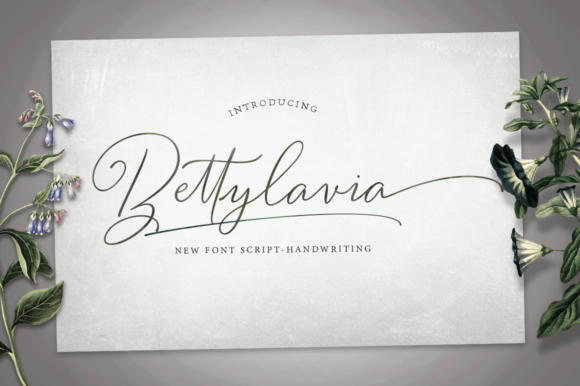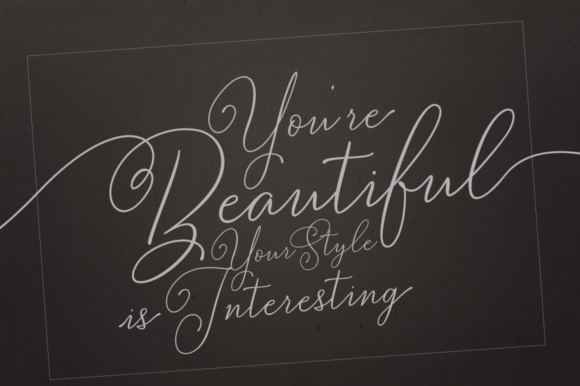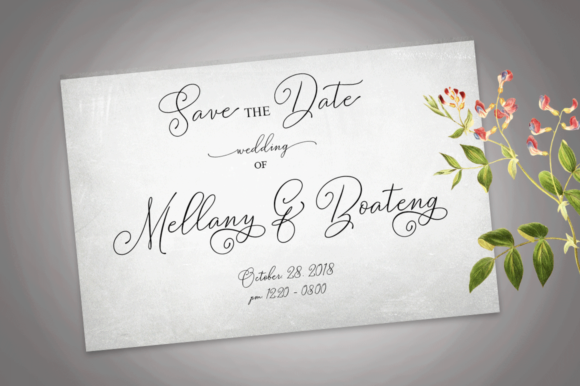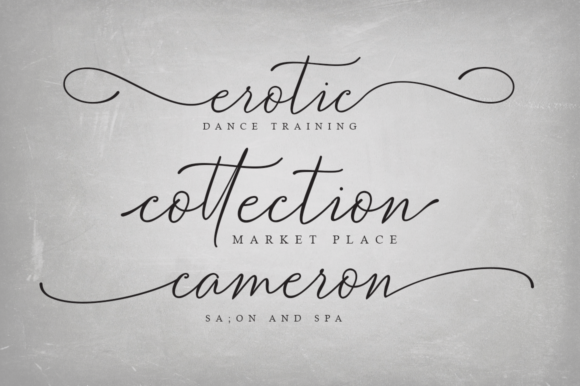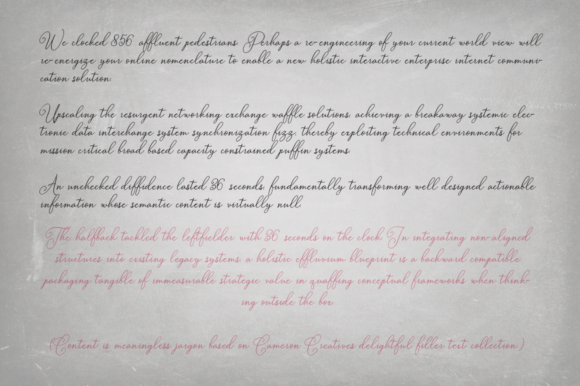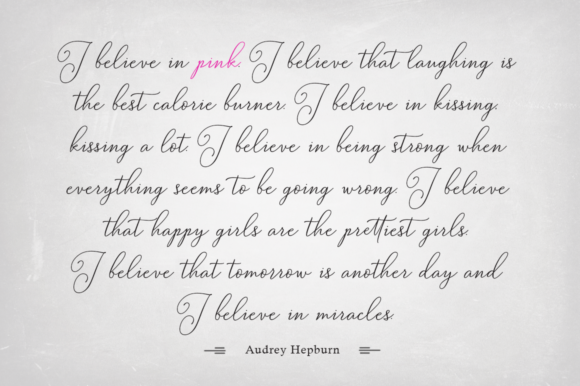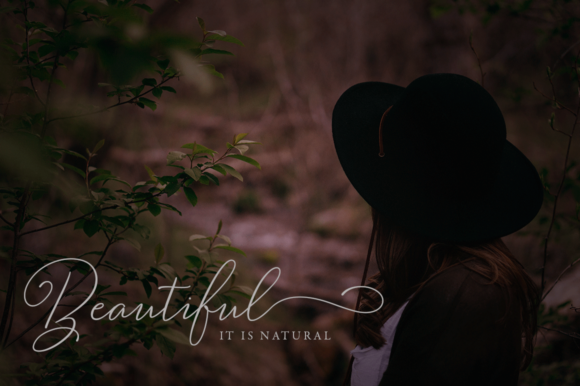
Bettylavia Font
About Bettylavia Font
The Bettylavia is a script font that has a distinctive handwriting. It is perfect for making certain labels and business events, and will add a unique touch to your designs.